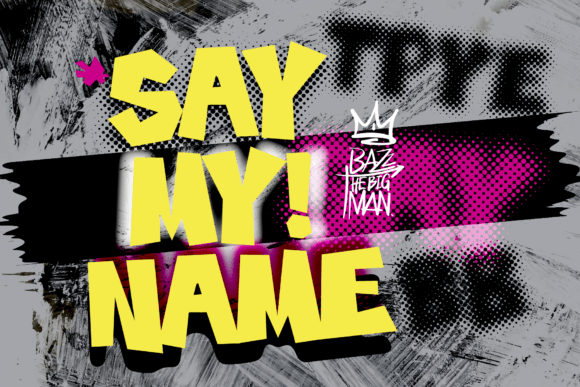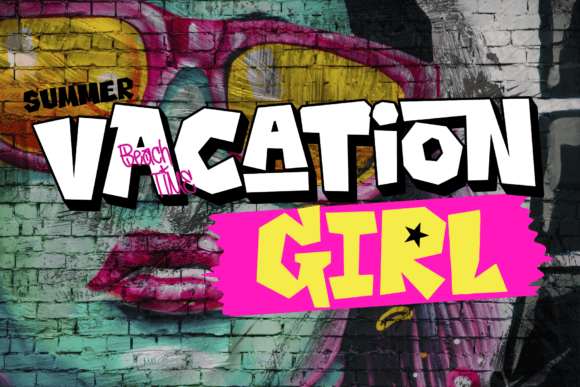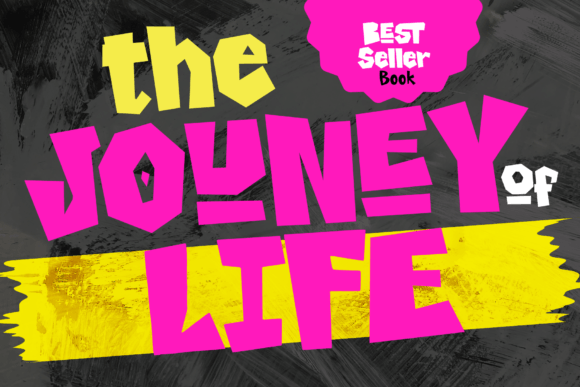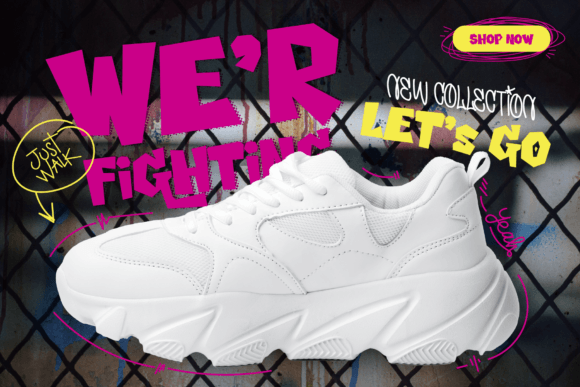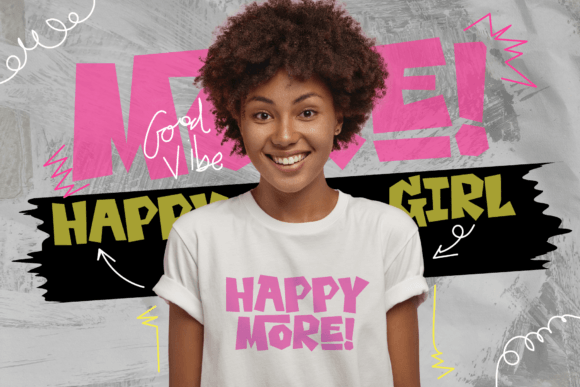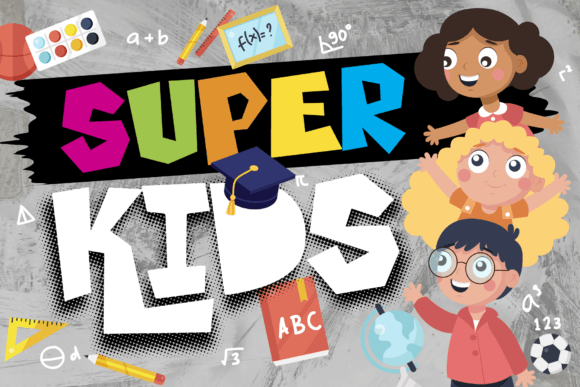
Discover the Unique Charm of Gens Type Font
In the world of typography, fonts play a crucial role in conveying the tone and personality of a design. Among the numerous typefaces available, Gens Type stands out for its distinctive, chic, and quirky charm. This display font, characterized by its invitingly thick letters, is designed to add a touch of creativity and whimsy to any project. In this article, we’ll explore the features of Gens Type and how it can elevate your designs to new heights.
The Distinctive Features of Gens Type
Gens Type is a display font that boasts a unique set of features, making it perfect for designers and crafters looking to add a dash of personality to their work. Some of its key characteristics include:
- Thick Letters: The font’s most striking feature is its thick, bold letters that command attention and exude confidence.
- Playful Aesthetic: Gens Type has a playful, whimsical quality that makes it ideal for designs that require a touch of humor or lightheartedness.
- Versatility: Despite its bold appearance, Gens Type can be used in a variety of contexts, from headings and titles to logos and branding materials.
How Gens Type Can Elevate Your Designs
Integrating Gens Type into your designs can have a profound impact on their overall aesthetic and effectiveness. Here are some ways this font can enhance your work:
- Amplifies Creativity: Gens Type’s unique charm can add a creative spark to your designs, setting them apart from more mundane projects.
- Evoke Intrigue and Delight: The font’s playful aesthetic can evoke emotions and reactions, making your designs more engaging and memorable.
- Captivating Outcome: When used effectively, Gens Type can generate a remarkable outcome that never ceases to captivate audiences.
Tips for Using Gens Type Effectively
To get the most out of Gens Type, consider the following tips:
- Use it Sparingly: Due to its bold nature, Gens Type works best when used sparingly, such as in headings or titles.
- Pair it with Other Fonts: Combine Gens Type with other fonts to create visual interest and add depth to your designs.
- Experiment with Colors: Don’t be afraid to experiment with different colors and textures to find the perfect combination that showcases Gens Type’s unique charm.
Who Can Benefit from Gens Type?
Gens Type is an excellent addition to any designer’s toolkit, particularly those who:
- Design for Fun and Creativity: Crafters, artists, and designers who enjoy experimenting with new and exciting typography will love Gens Type.
- Work on Branding and Identity Projects: Gens Type’s bold, attention-grabbing nature makes it perfect for branding and identity projects that require a strong visual statement.
- Seek to Stand Out: Anyone looking to add a touch of personality and whimsy to their designs will find Gens Type to be an excellent choice.
Gens Type is a display font that offers a refreshing alternative to more traditional typography. Its unique blend of chic and quirky charm makes it perfect for designers and crafters looking to add a dash of creativity to their work. By incorporating Gens Type into your designs, you can amplify their creativity, evoke intrigue and delight, and generate a captivating outcome that never ceases to impress.